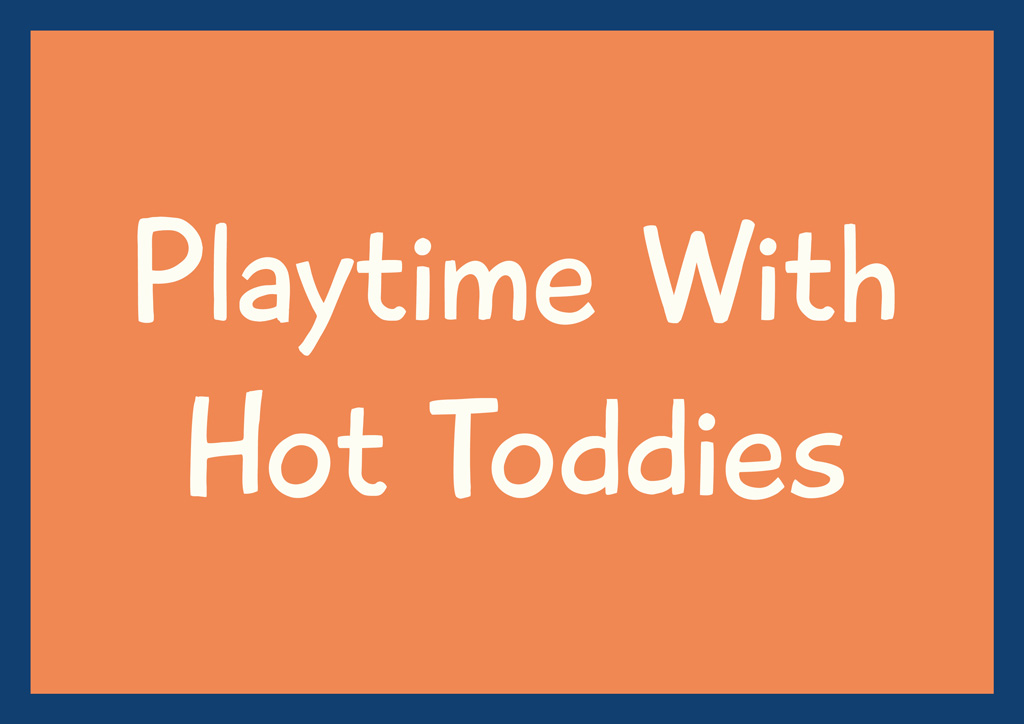
Incredible Best Fonts For Children's Books References. The best fonts for books—along with hyphens, widows, orphans, tight and loose lines, and all the other “rules” of typesetting—are meant to guarantee an optimum experience. The only 5 fonts you’ll ever need.
It fits all the good font characteristics! Boldenvan is the perfect font for your next project! This font is perfect for branding, quotes, kid's designs, blogs, logos, and more!
What Are The Best Fonts For Kids?
This font is simply perfect for designing book cover titles and headings. With its chubby, bold looks,. As the saying goes—if it ain’t broke don’t fix it.
It Is A Great Font For Your Books Because It Is Easy On The Eyes, Highly Readable, And Elegant.
The best font for kids might be a typeface that is very close to the letterforms that kids are learning to. Cartoons, books, children’s products, logos —. A list of free and premium captivating children’s book fonts that you can use to inject a little childish glee into your next project.
Its unique style and colourful letters. Best free fonts for books; If you want to add to your design fun and good mood — your choice is krabuler.
Fonseca Is A Beautiful Font Family With A Design Inspired By Classic Art Deco From The Early 20Th Century.
My favorite font for kids is sassoon primary. Best fonts for children’s book: The best for basic yet effective book text fonts;
We Evaluated Each Fonts For Children’s Book In This Category According To Four Key Elements: